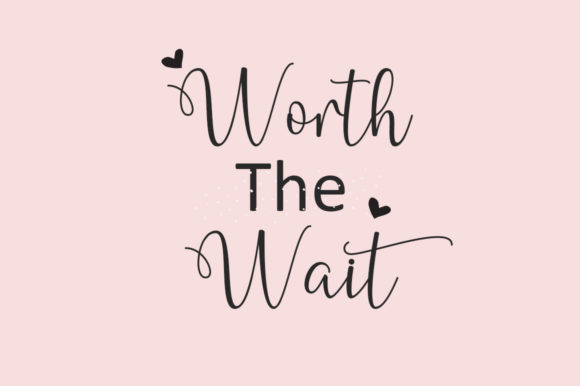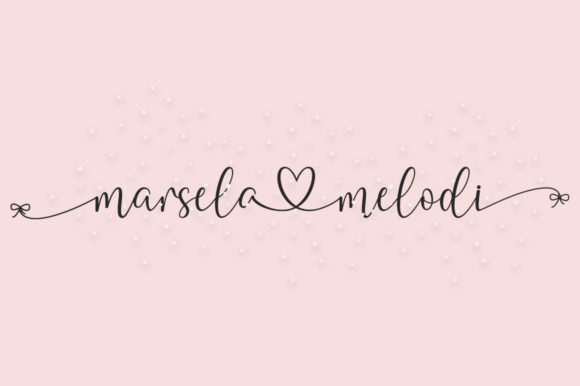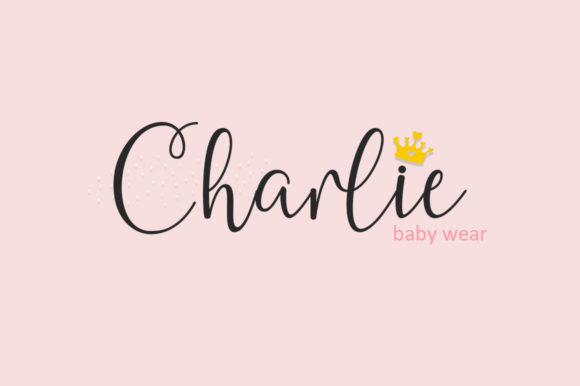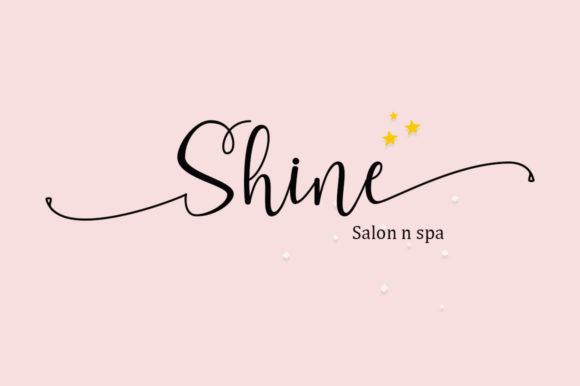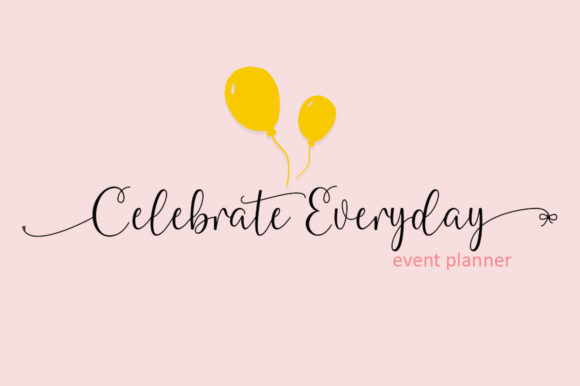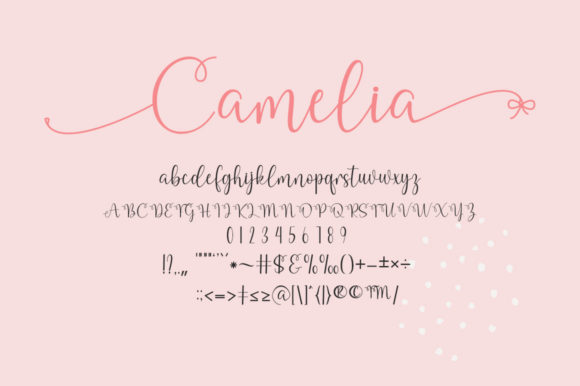
Introducing Camelia Font: Elevate Your Designs with Elegance
In the world of typography, the right font can make all the difference in transforming a design from ordinary to extraordinary. For designers and crafters seeking a touch of elegance and sophistication, the Camelia Font is an exceptional choice. This thin lettered and delicate script font is not only visually stunning but also highly versatile, making it perfect for a wide range of creative projects.
What Makes Camelia Font Special?
Camelia Font stands out with its unique characteristics that set it apart from other script fonts. Here are a few key features that make it a must-have for designers and crafters:
- Thin Lettered and Delicate: Camelia boasts a slender and graceful design, adding a touch of refinement to any project. Its delicate nature makes it ideal for designs that require a subtle yet impactful typographic style.
- PUA Encoded: Being PUA (Private Use Area) encoded, Camelia offers an extensive range of glyphs and ligatures that can be accessed with ease. This encoding ensures that users can unlock the full creative potential of the font without any technical hassles.
- Ease of Use: The font’s design and encoding allow for straightforward integration into various design projects. Whether you’re working on digital content, print materials, or crafting unique art pieces, Camelia can be used confidently to achieve professional and aesthetically pleasing results.
Unlocking Creative Potential with Camelia
The true power of Camelia Font lies in its ability to enhance and transform your designs. By incorporating this elegant script font into your projects, you can:
- Elevate Brand Identity: For businesses and entrepreneurs, using a distinctive and sophisticated font like Camelia can help in establishing a strong and memorable brand identity. It’s perfect for logos, branding materials, and marketing collateral.
- Enhance Digital Content: In the digital realm, content creators can use Camelia to make their blogs, social media posts, and website content more engaging and visually appealing. Its readability and elegance ensure that your message is conveyed with style.
- Personalize Crafts and Art: Crafters and artists can add a personal touch to their handmade projects, such as greeting cards, invitations, and DIY crafts. Camelia’s unique charm can make any craft stand out.
Tips for Using Camelia Font Effectively
To maximize the impact of Camelia Font in your designs, consider the following tips:
- Pair with Complementary Fonts: For optimal results, pair Camelia with fonts that complement its delicate style. A combination of a bold sans-serif font with Camelia can create a striking visual contrast.
- Adjust Size and Color: Experiment with different sizes and colors to ensure that Camelia stands out in your design without overpowering it. Its thin letters can be effectively used in headlines, subheadings, and body text with the right adjustments.
- Utilize Ligatures and Glyphs: Take full advantage of Camelia’s PUA encoding by exploring the range of ligatures and glyphs available. These elements can add a unique flair to your text, making it more dynamic and engaging.
Camelia Font offers a perfect blend of elegance, versatility, and creativity for designers and crafters looking to elevate their projects. Its delicate script style, combined with PUA encoding for easy access to glyphs and ligatures, makes it a valuable asset in any creative toolkit. Whether you’re aiming to enhance brand identity, create stunning digital content, or personalize crafts, Camelia is sure to deliver impressive results. Add it to your favorite creations and be amazed by the transformative power of typography.